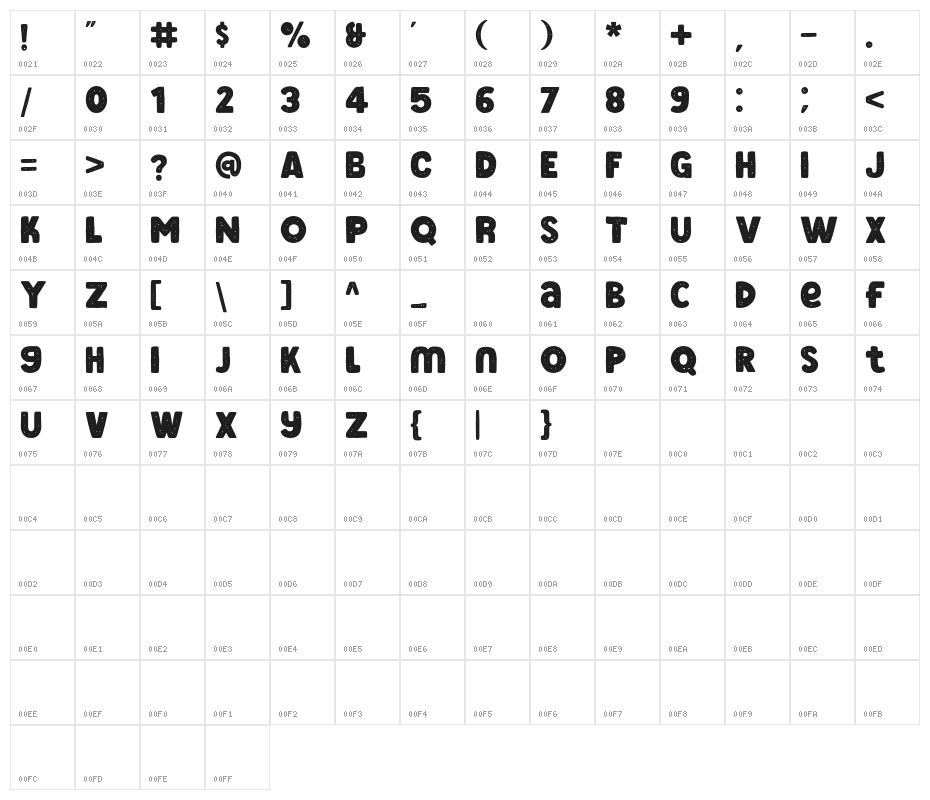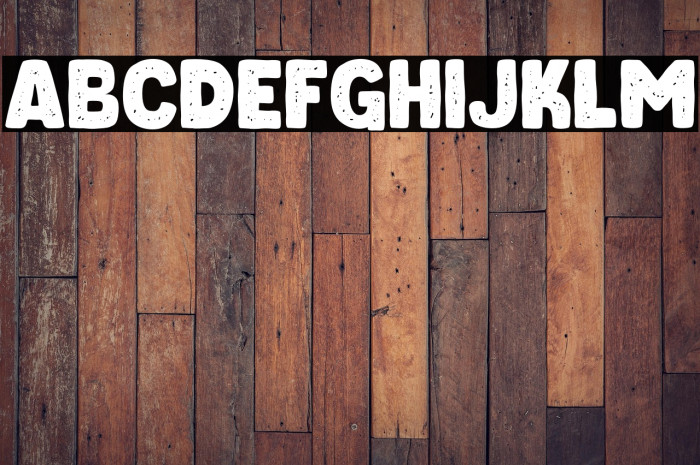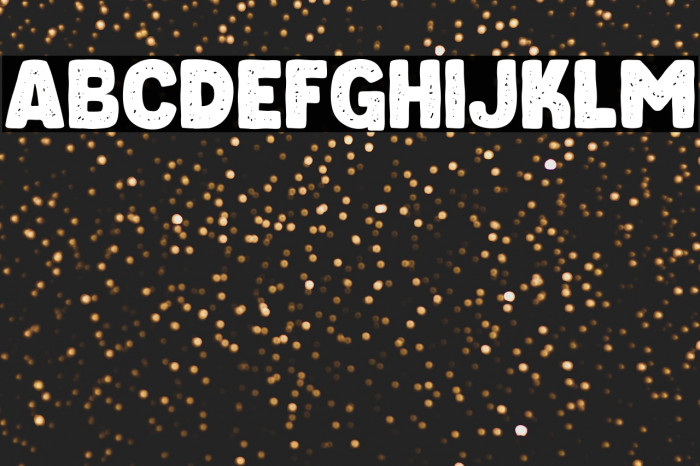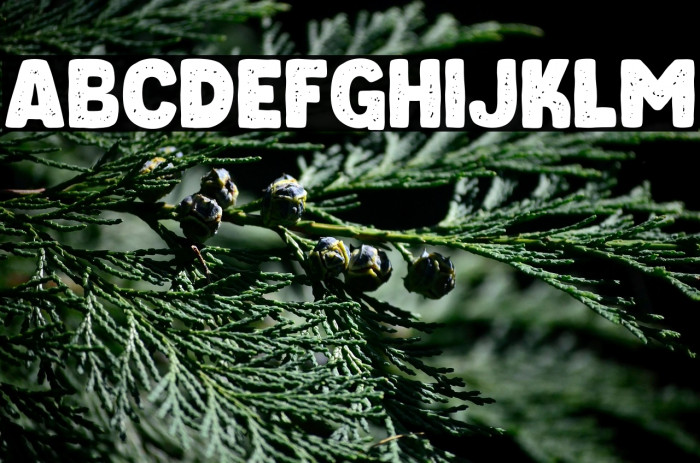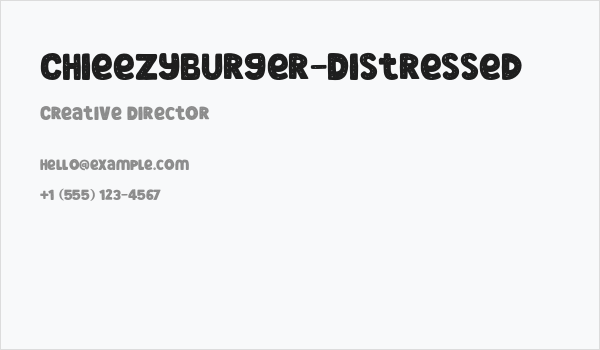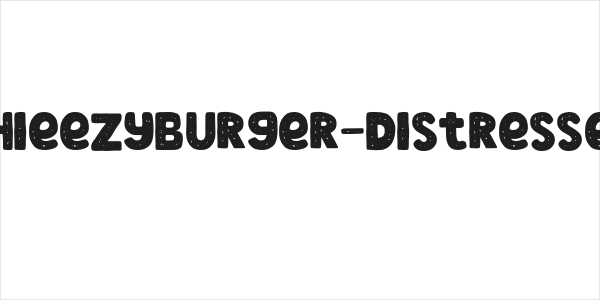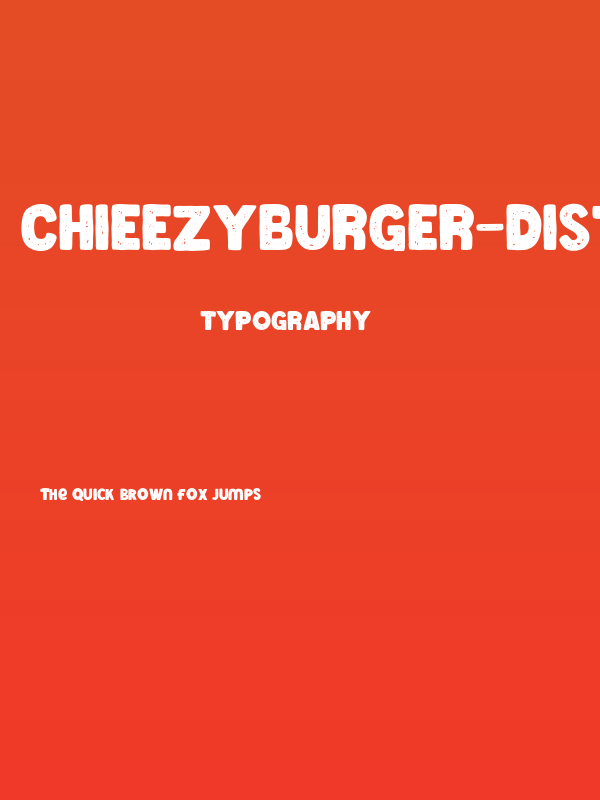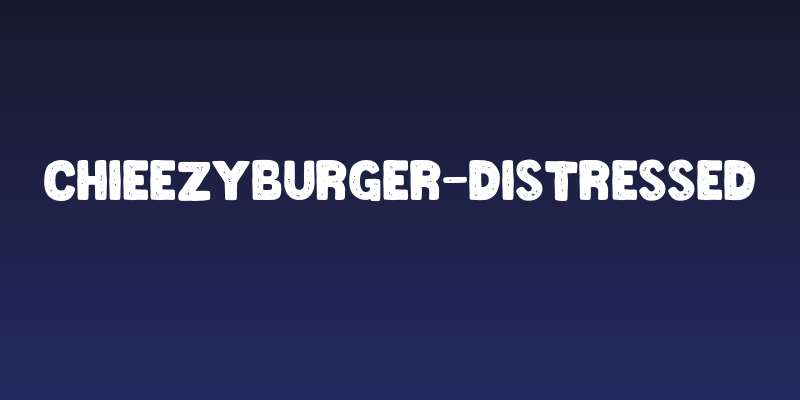
ChieezyBurger-Distressed Font
ChieezyBurger-Distressed Description
This font features a playful and bold style with a distressed texture that adds a vintage and worn-out look. The characters are rounded and thick, giving a friendly and approachable feel. The distressed effect is consistent across all characters, creating a cohesive appearance. The font includes uppercase and lowercase letters, numbers, and a variety of special characters, making it versatile for different design needs. Its boldness ensures high visibility, making it suitable for attention-grabbing headlines or logos.
| Proposed Projects | Ideal for posters, branding, logos, and any project requiring a bold and playful vintage look. |